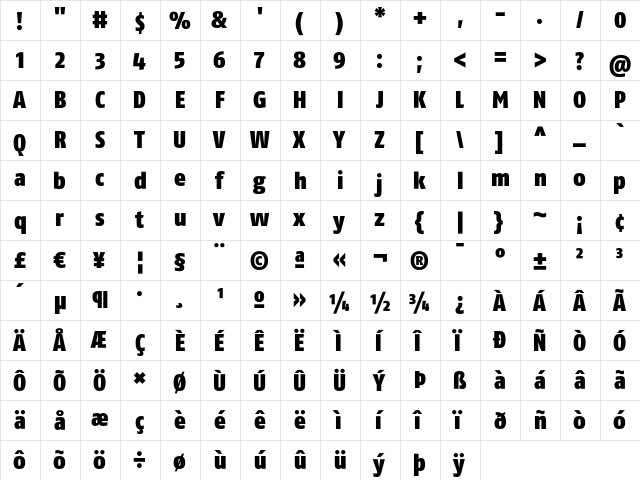
FagoCoLf Black
Design Context for FagoCoLf Typeface
FagoCoLf takes a measured approach to typography — its balanced proportions and neutral character make it a reliable workhorse for both digital and print work.
Pro Tip: Pair FagoCoLf with a font of contrasting weight or personality to build a more expressive typographic hierarchy.